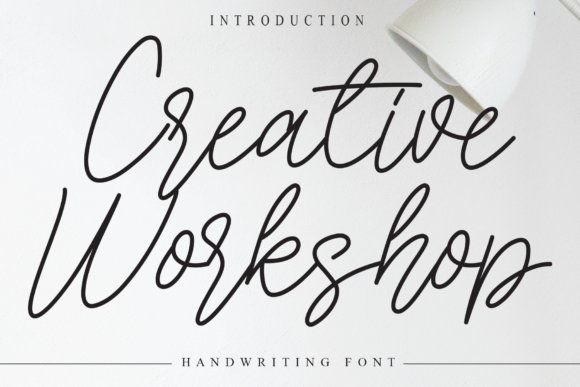
Introducing Creative Workshop Font, the elegant and timeless script font that will transform your designs into captivating masterpieces. Journey back to an era of vintage charm and sophistication with this exquisite creation from Misterletter.co.
With its graceful curves and delicate strokes, Creative Workshop Font exudes a captivating allure that will leave you spellbound. Each letter dances across the page like a delicate ballet, evoking a sense of nostalgia and romance. Ideal for vintage logos, branding projects, wedding invitations, and any design seeking a touch of timeless beauty.
Embrace the artistry of Creative Workshop Font and watch your creative visions come to life. Its versatility knows no bounds, allowing you to effortlessly elevate your designs to new heights. From elegant wedding invitations to eye-catching branding materials, this font will add an unforgettable touch of sophistication to any project you undertake.
Unleash your creativity and let Creative Workshop Font guide you on a journey of aesthetic discovery. Its delicate lines and flowing curves will captivate your audience, leaving them enchanted by the timeless beauty of your designs. Experience the magic of Creative Workshop Font today and see your creations transformed into works of art.